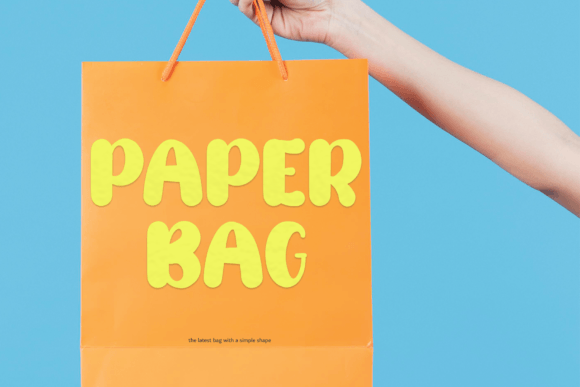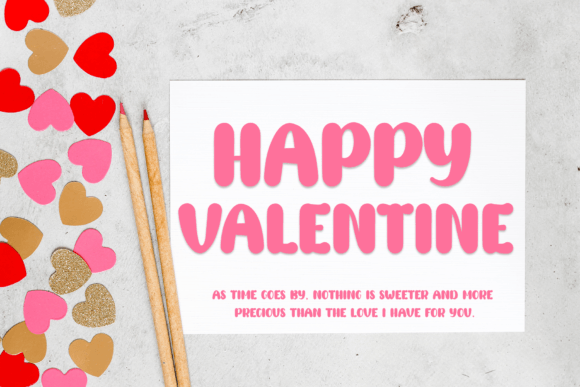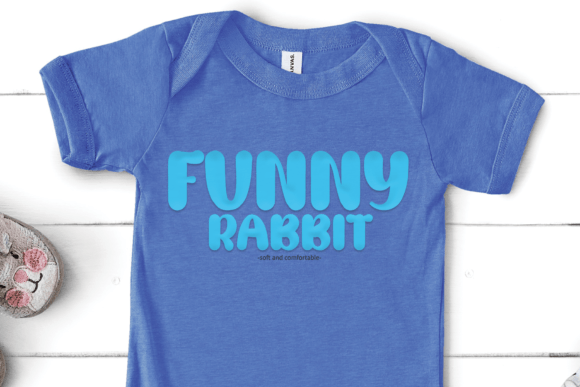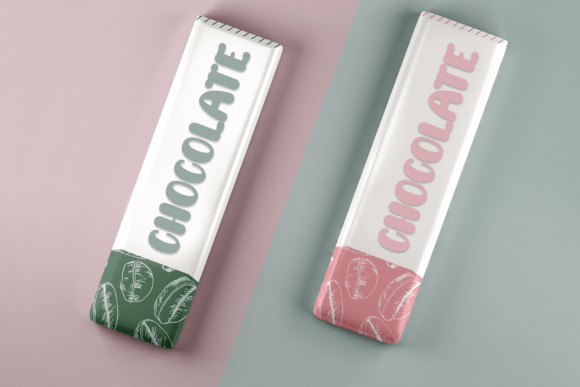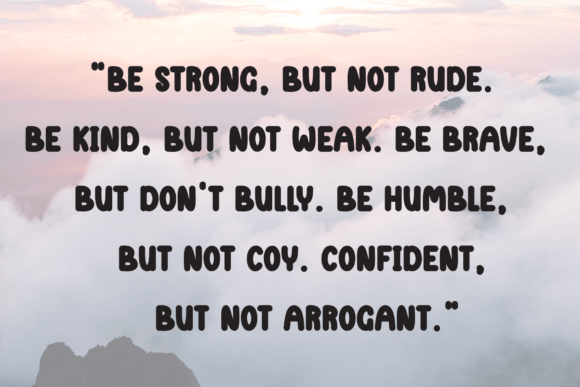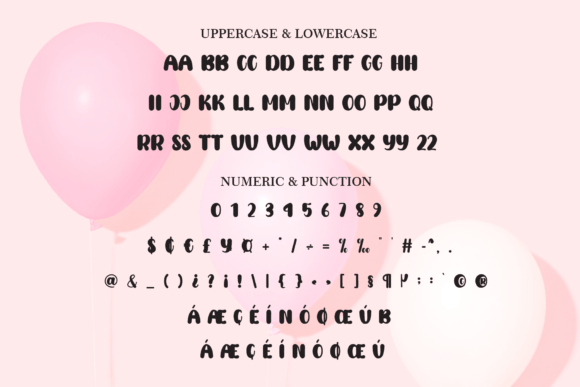
The Perfect Pop of Personality: Balloon Font
Do you remember the thrill of crafting handmade cards for your loved ones as a child? The scribbled messages, the colorful markers, and the sense of excitement that came with giving something truly personal? As designers, we’re no strangers to the joy of bringing a personal touch to our work, and that’s exactly what the Balloon Font is all about.
This sweet and friendly handwritten font is the perfect addition to any design project that needs a fun and playful vibe. From wedding invitations to birthday cards, the Balloon Font is ideal for adding a whimsical touch that’s sure to delight. Its fresh and neat style makes it a valuable asset for designers looking to add a little personality to their work.
Balloon Font Key Features
- Font Style: Balloon Font is a sans-serif, rounded font family.
- Unique Characteristics: The font’s rounded edges and smooth curves give it a playful, yet professional look, making it suitable for various design applications, including branding, advertising, and editorial content.
Review of Balloon Font
Overall, I found the Balloon Font to be a unique and eye-catching choice for typography. Here are some of its standout features: ✨
- Expressive and playful feel: The Balloon Font has a fun and bubbly personality that can add a lighthearted touch to any design project.
- Highly customizable: With a wide range of weights and styles available, you can easily tailor the font to fit your specific design needs.
- Perfect for creative projects: The Balloon Font is particularly well-suited for projects that require a touch of whimsy and personality, such as children’s books, party invitations, or social media graphics.
However, I did encounter a few limitations with the Balloon Font: ⚠️
- Difficult to read in large blocks of text: Due to its playful and irregular design, the Balloon Font can be challenging to read in long passages of text.
- Limited legibility at small sizes: When the font is scaled down, its intricate details can become difficult to distinguish, making it harder to read.
In conclusion, the Balloon Font is a great choice for designers who want to add a touch of personality and whimsy to their projects. While it may have its limitations, its unique features and high level of customizability make it a valuable addition to any design toolkit.
Tips for Getting the Most Out of Balloon Font
1. Use Balloon Font to create eye-catching headings and titles.
2. Combine Balloon Font with other fonts to create a unique and playful design.
3. Experiment with different font sizes and colors to add visual interest.
1. Party invitations and decorations.
2. Children’s birthday party materials.
3. Social media graphics and advertisements.
Alternatives to Balloon Font
Comic Sans
Comic Sans is a casual, informal font that is often used for playful and friendly designs. It is a good alternative to Balloon Font when you need a similar level of whimsy, but with a more recognizable and widely used font.
Compared to Balloon Font, Comic Sans is more widely available and has a more established aesthetic. However, it can also come across as less sophisticated and more childish.
Great Vibes is a handwritten font that is often used for creative and artistic designs. It has a more elegant and refined feel than Balloon Font, making it a good choice when you need a more sophisticated look.